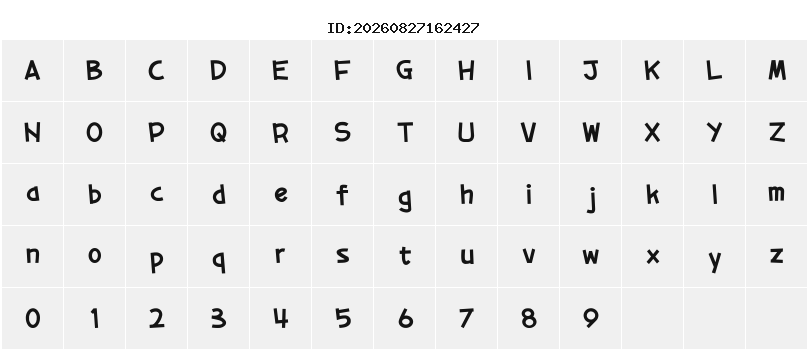
• Font Name: 01tama
About 01tama.ttf
01tama.ttf is a modern, elegant sans-serif font designed for ultimate readability and visual harmony. Perfect for branding, headlines, web design, and print materials.